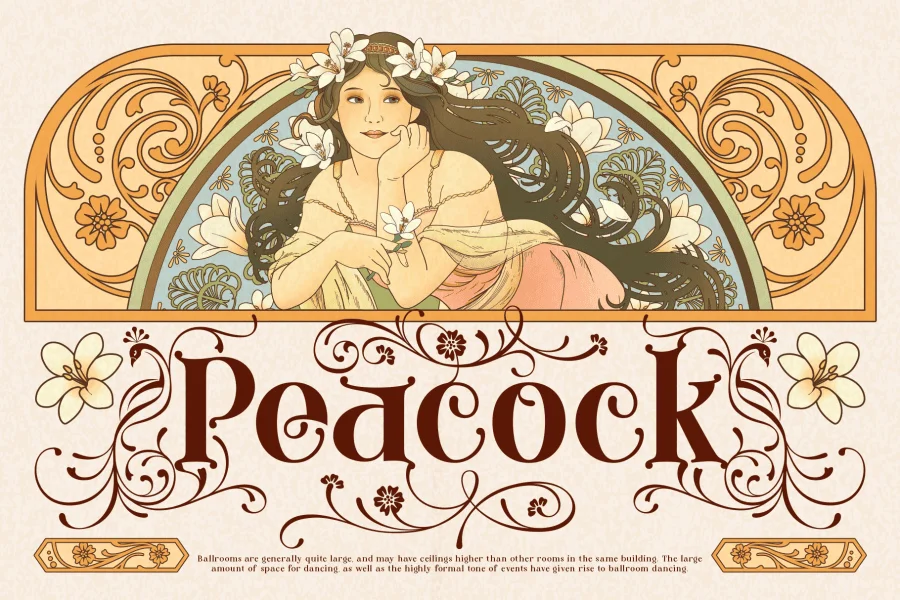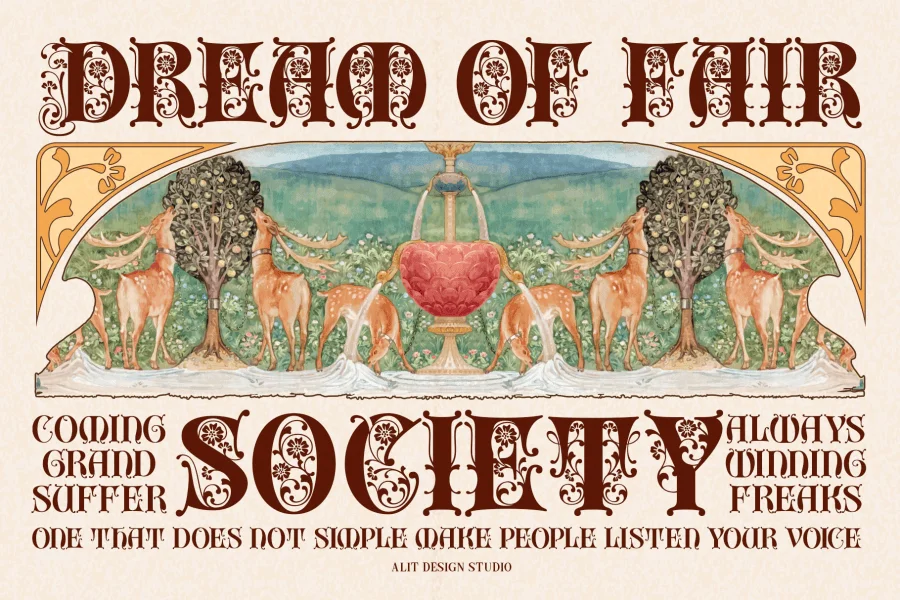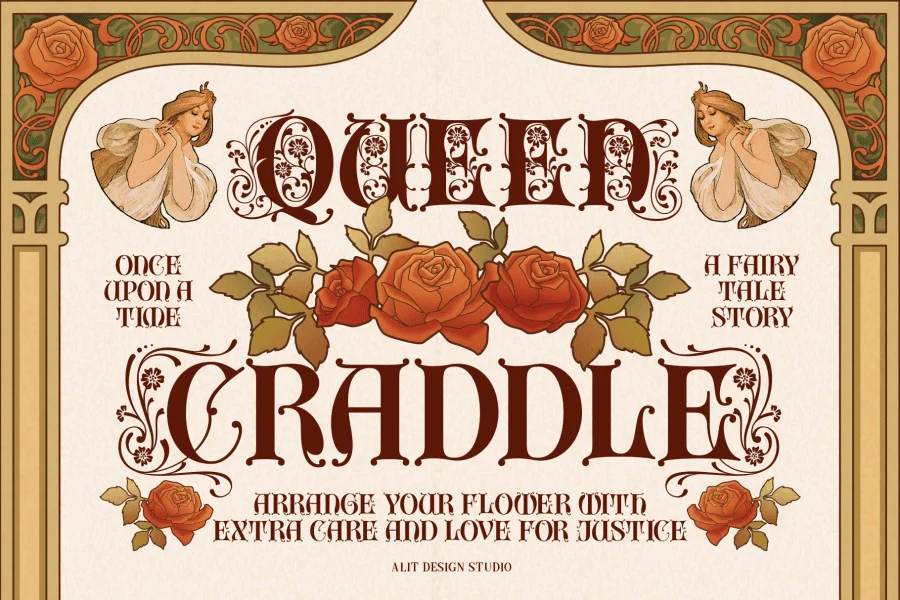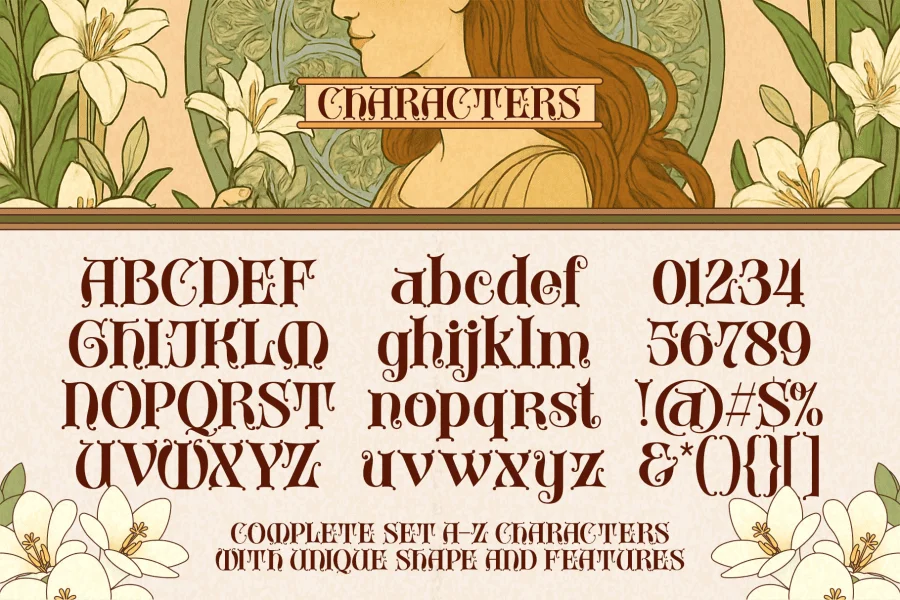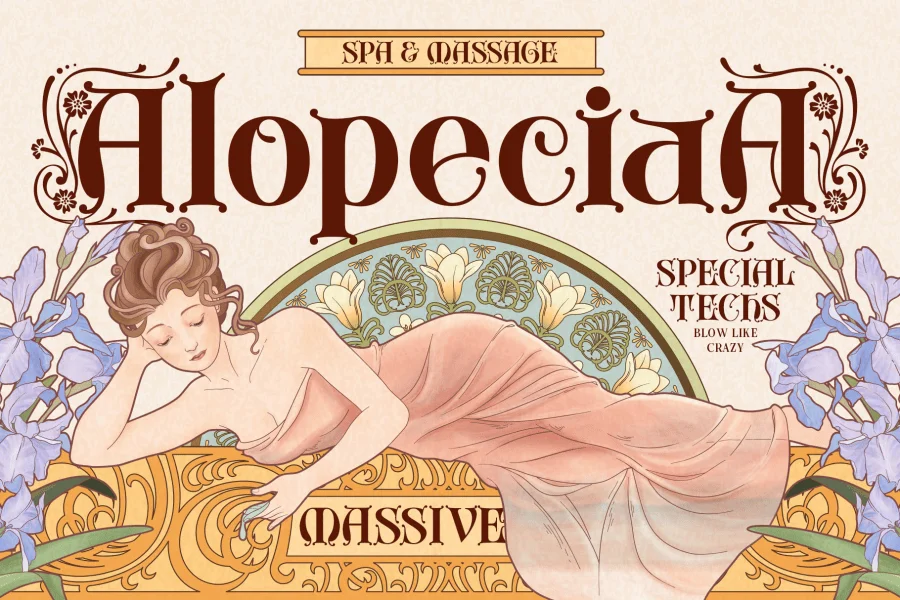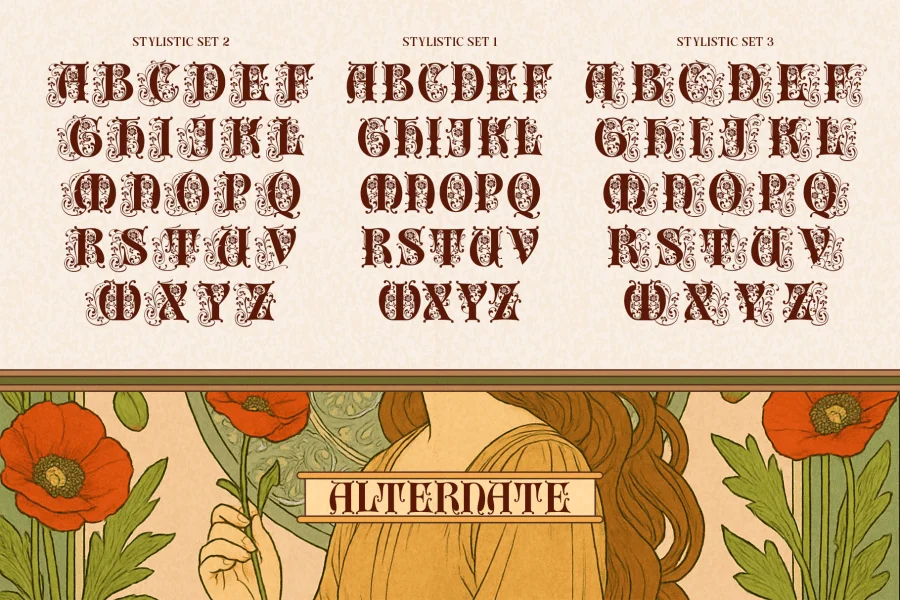
Grand Malon - An Exquisite Gothic Display Font
Step into a world of timeless elegance and intricate beauty with Grand Malon, a stunning display typeface that breathes life into the classic Gothic serif style.
Inspired by the ornate typography found in treasured old books and vintage manuscripts, Grand Malon is a masterpiece of digital craftsmanship. Every letter is a work of art, meticulously designed with elaborate details, graceful swirls, and nature-inspired ornamentation. This font is not just a set of characters; it's a gateway to creating designs that are both classic and captivating.